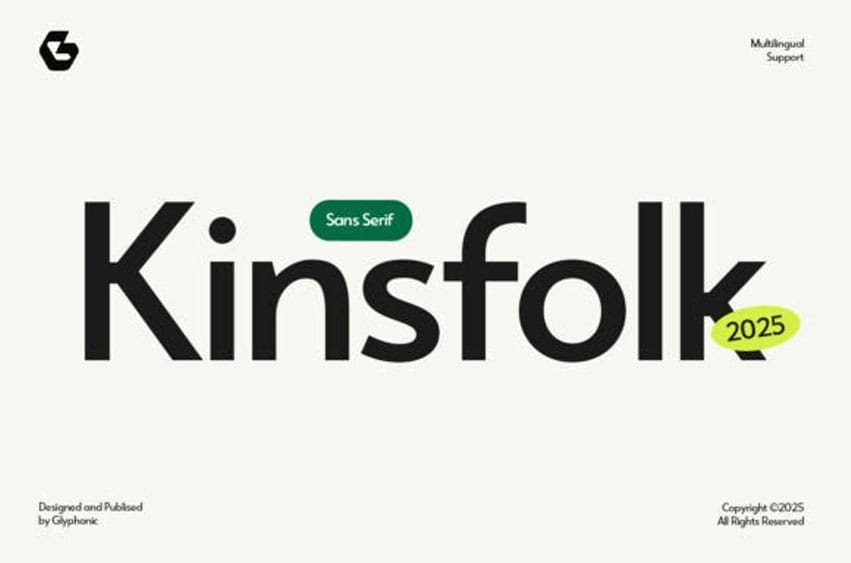
Kinsfolk Sans Font is a modern sans-serif typeface that blends contemporary elegance with a futuristic style. Perfectly suited for headlines, branding, logos, packaging, and editorial layouts, it’s crafted to leave a lasting impression.
With its high contrast strokes, modern sans, and future style, Kinsfolk brings personality and sophistication to any design. Whether you’re designing for fashion, lifestyle, or artistic visuals, this typeface offers versatility and refined style.